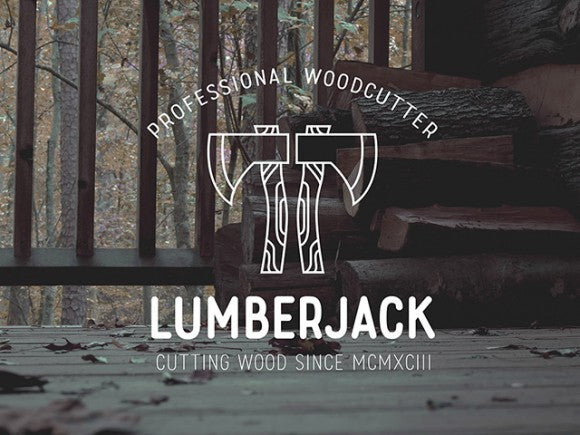
Free Rolade An all caps rounded font
Free rolade an all caps rounded font for any designer that is looking to display their design professionally. This typeface file was found from the amazing source called Freebies Bug. Easily amaze your audience with this fancy font and make your graphic designs pop up from the crowd.